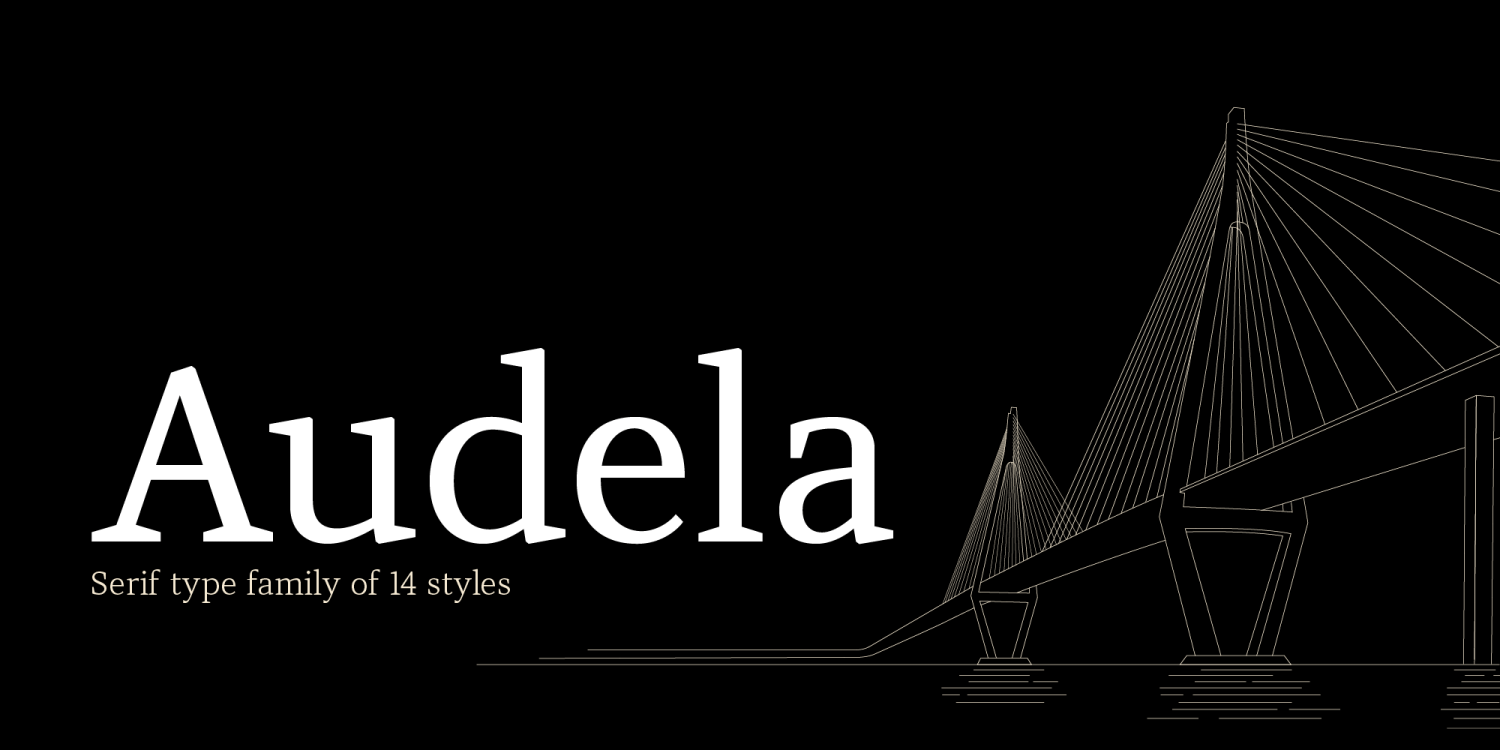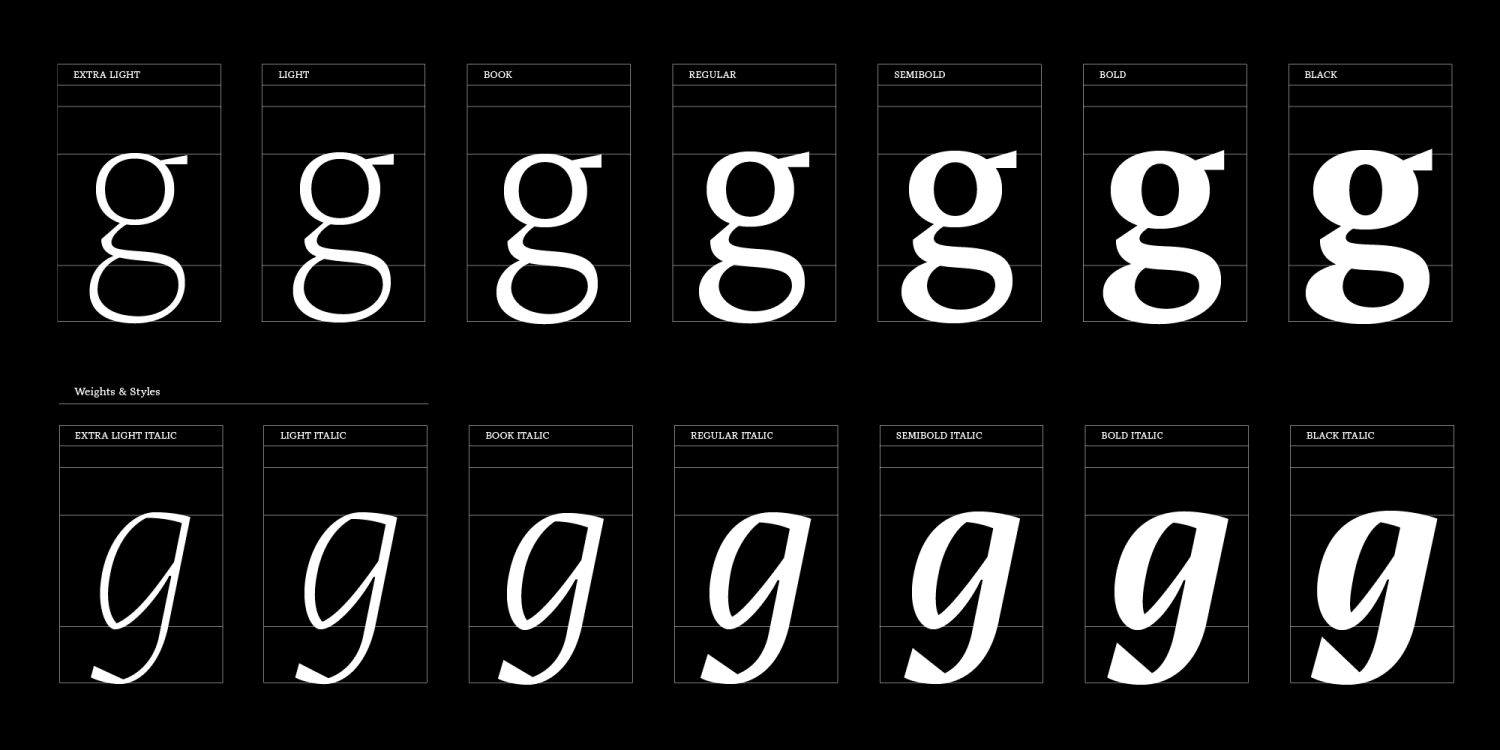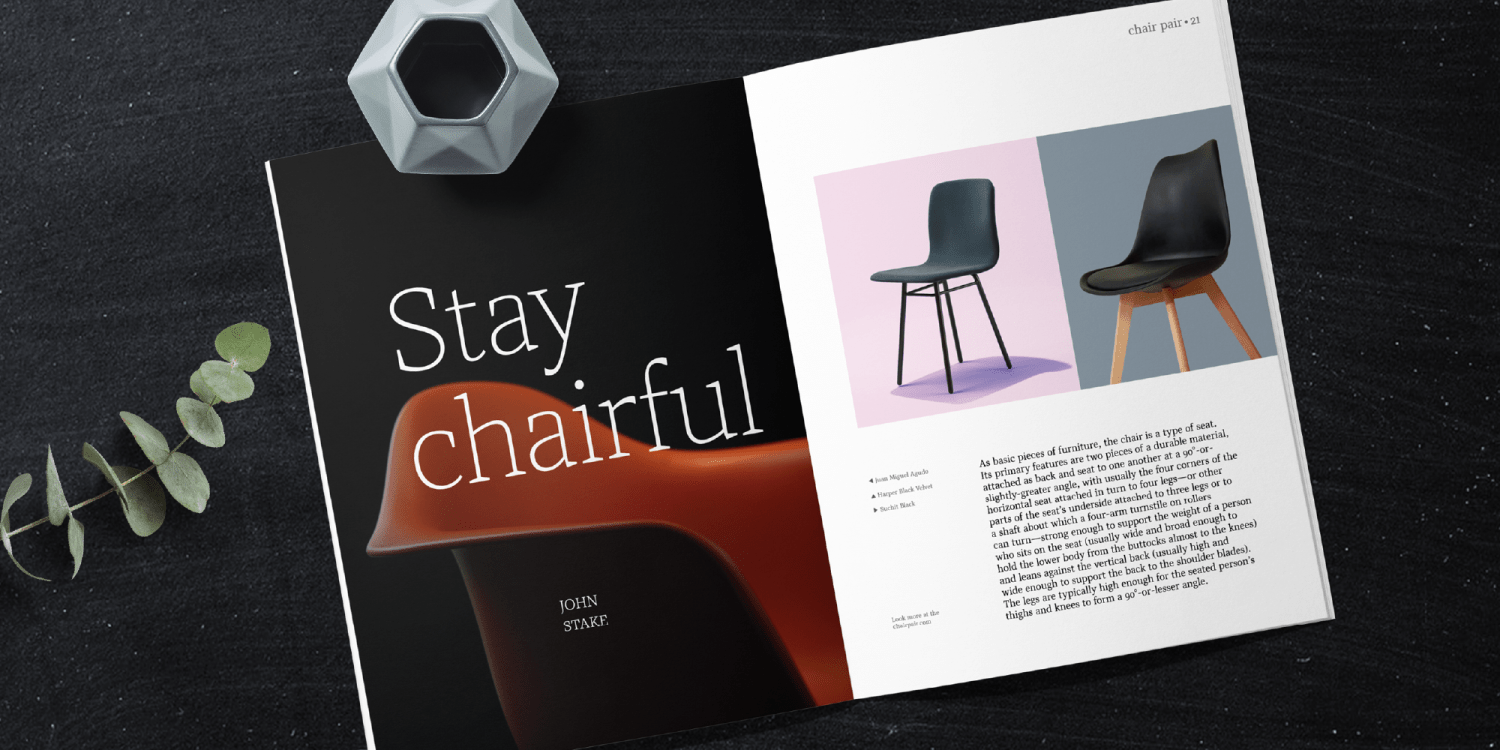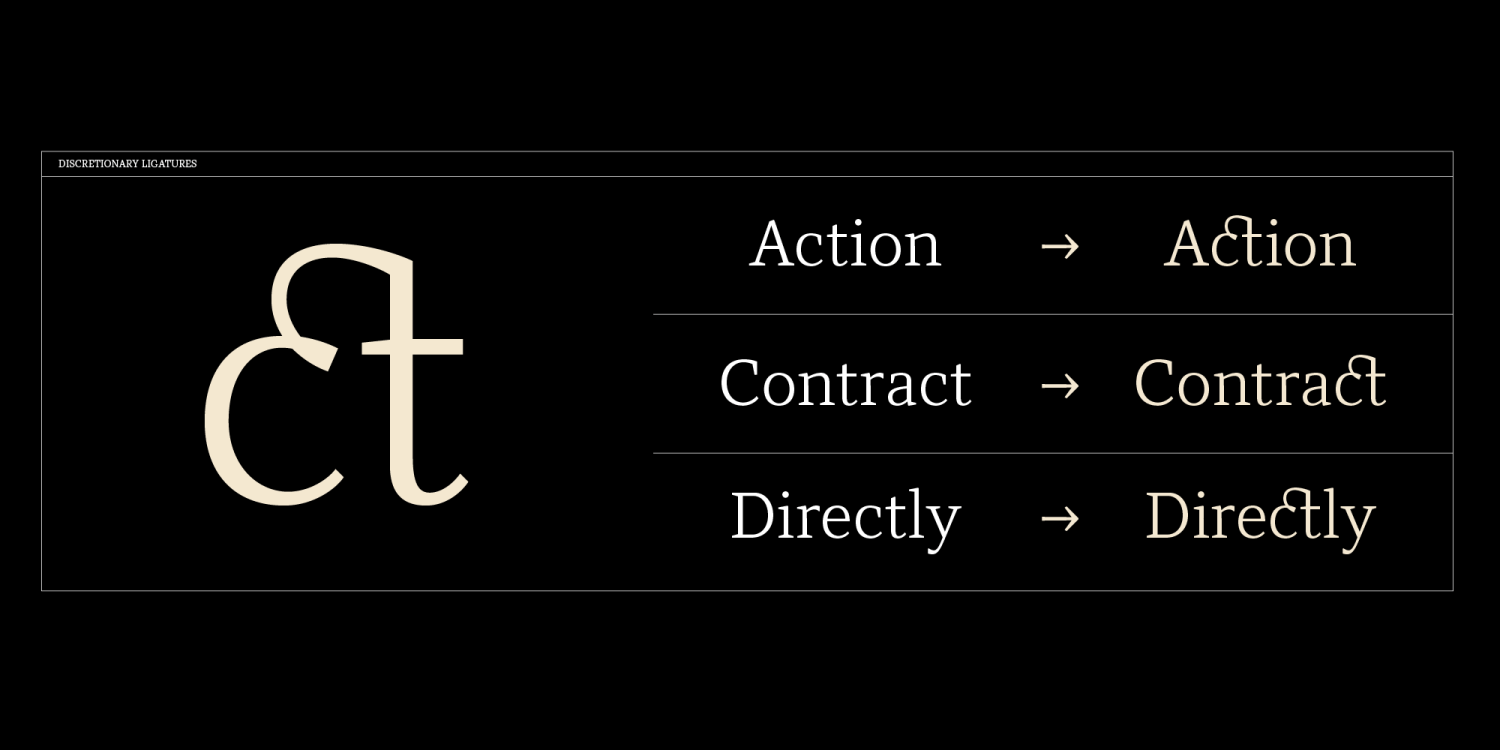
Audela
Audela is a Serif typeface designed for high-impact print and digital design. Its sharp, wedge-shaped serifs, and flowing, expressive letterforms that bridge traditional Antiqua elegance with contemporary precision make it an excellent choice for designers and creatives aiming to make a lasting impression with sophisticated typography.
Whether you're working on brand identities, magazine layouts, book covers, editorial titles, and website headers, this font delivers:
- Elegant and versatile across media, from print to web
- Advanced OpenType features (ligatures, alternates, stylistic sets) for refined typographic control
- Extended Latin and Cyrillic support enables broad multilingual use
With a total of 16 styles, advanced OpenType features, and multilingual support, Audela ensures versatility and high-quality typography for every project. Download Audela today!
Audela offers sharp, wedge-shaped serifs and flowing, expressive letterforms that bridge traditional Antiqua elegance with contemporary precision.